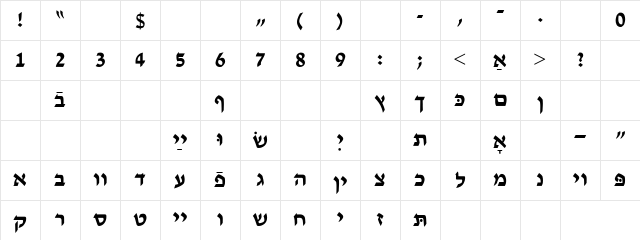
Complete Ain Yiddishe Font-Modern Regular glyph index. Displaying only characters natively supported by Ain Yiddishe Font-Modern Regular font.
Ain Yiddishe Font-Modern is a composed and adaptable typeface that performs quietly and consistently across a wide range of design contexts.